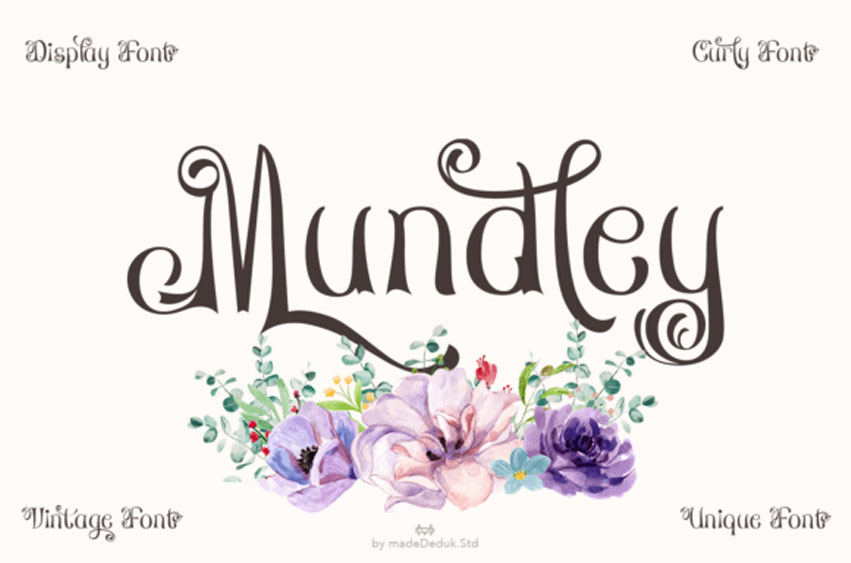
Mundley Regular Font
Mundley Regular Font is a stunning decorative display font that blends vintage elegance with a playful, curly twist. Its graceful letterforms, swirling strokes, and artistic details make every word feel like a piece of art.
The delicate curves create a sense of romance and whimsy, while the bold structure keeps it versatile and readable.
Whether you’re designing wedding invitations, vintage-themed branding, elegant logos, or eye-catching social media graphics, the Mundley font delivers a unique charm that stands out effortlessly.
With its stylistic alternates, ligatures, and multilingual support, this font opens endless creative possibilities for designers who want to craft something unforgettable.